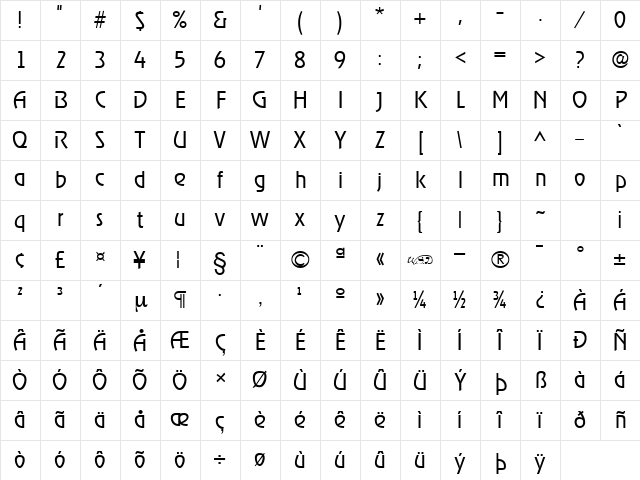
RevelLight Regular
Design Context for RevelLight
RevelLight is a composed and adaptable typeface that performs quietly and consistently across a wide range of design contexts. Its slender proportions lend an understated elegance to any composition.